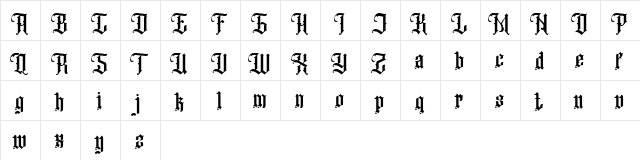
Black Klisse Free Font Regular
| Foundry | Maulana creative |
| Designer | Maulana creative |
Design Context for Black Klisse Free Font Typeface
Black Klisse Free Font is a composed and adaptable typeface that performs quietly and consistently across a wide range of design contexts.